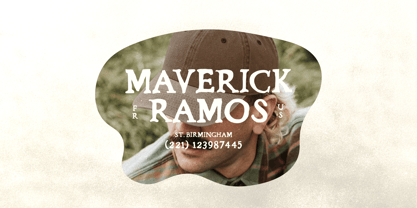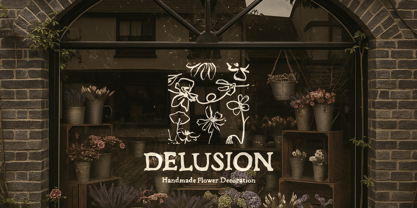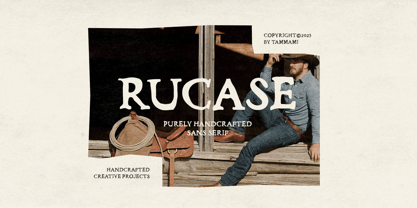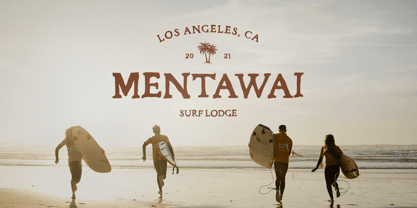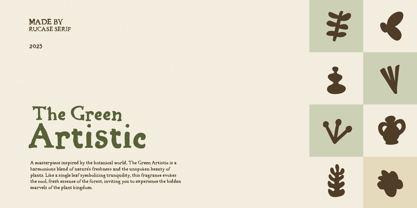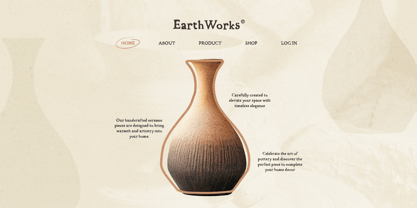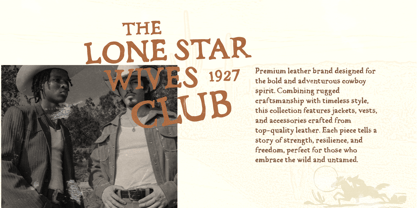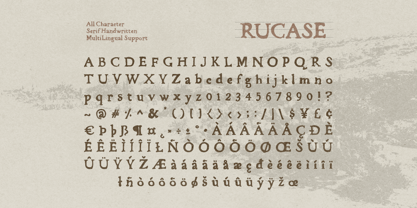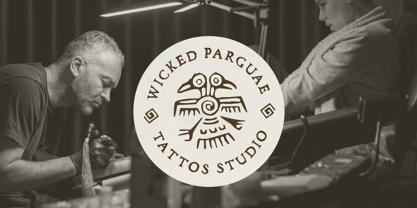
Rucase
by Gholib Tammami
Rucase is a refined handwritten serif font inspired by human touch and artisanal craftsmanship. Its balanced strokes and graceful curves bring a nostalgic charm, blending retro elegance with timeless appeal. Perfect for brands seeking a vintage or classic aesthetic, Rucase adds an authentic, handcrafted feel to logos, packaging, posters, and editorial designs, making every project feel unique and personal.
Designers: Gholib Tammami
Foundry: Gholib Tammami